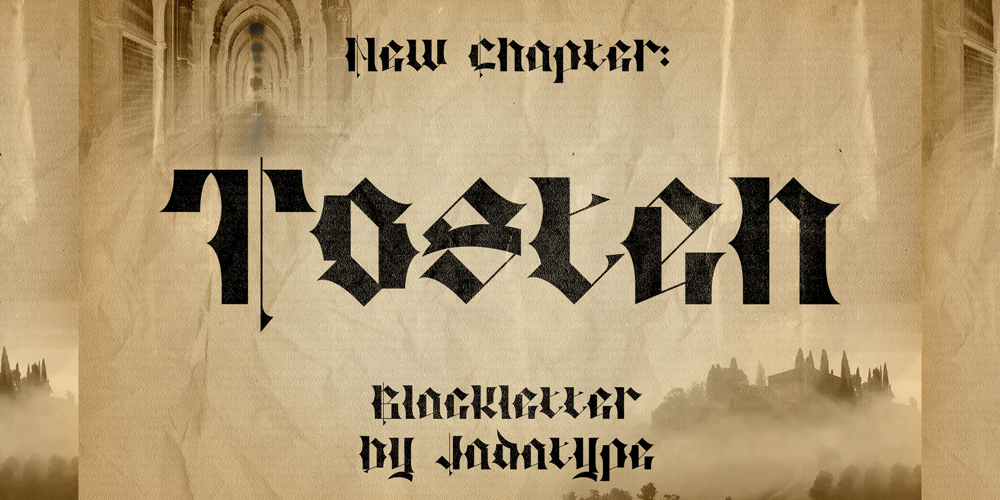
Tosten
Tosten font
Tosten Font Family was designed by Jada Akbal and published by Jadatype. Tosten contains 1 styles and family package options. Tosten is a Display font that came with Blackletter style. Suitable for product, Branding, social media, logotype and so on. contains standard English letters, numbers, punctuation, and several accents that support multilingualism. can be installed and used on applications such as adobe family, affinity, or Microsoft Word.